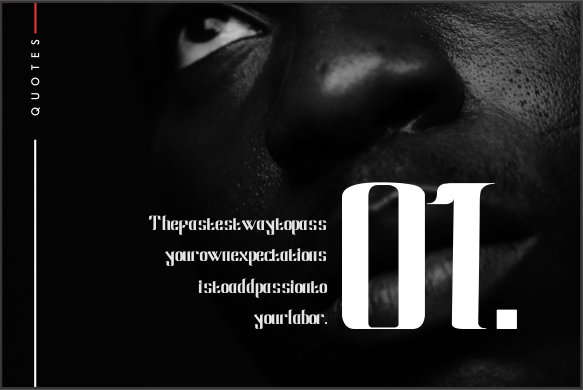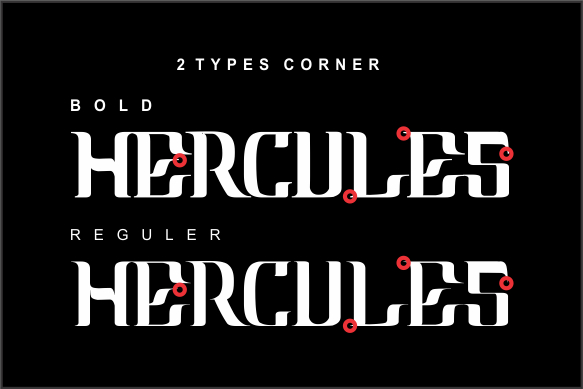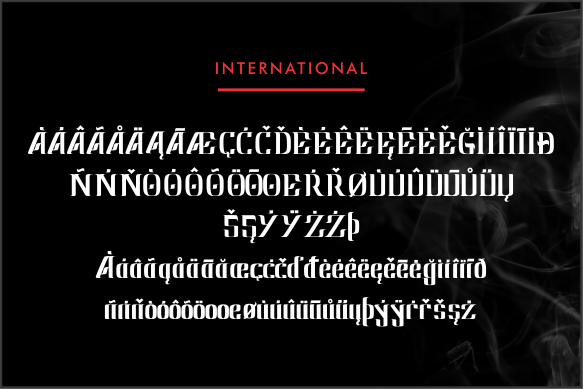
About Raven Font
The Raven is a striking black letter font. It was inspired by the sub-text of a book and includes two variations with amazing sharpness.
It is suitable for use in various media such as headlines, posters, magazines, newspapers, t-shirts, labels, and any other designs that require a striking touch.